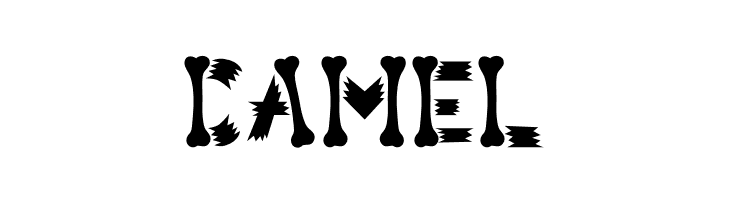
A bold, distressed font with an expanded width and rugged texture.
A rugged, distressed font with a textured, weathered appearance.
A bold, bone-like font with a jagged, textured design ideal for spooky themes.